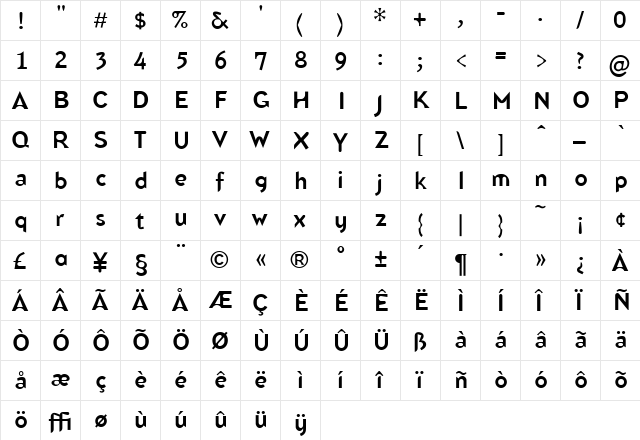
Blindfish Regular Font Preview
Blindfish Regular
Blindfish Regular Font Details
| Foundry | Copr. Jens Gehlhaar/gagafonts |
Design Context for Blindfish Typeface
Blindfish offers clean, dependable letterforms without strong stylistic allegiance, making it a practical choice for designers who need flexibility.